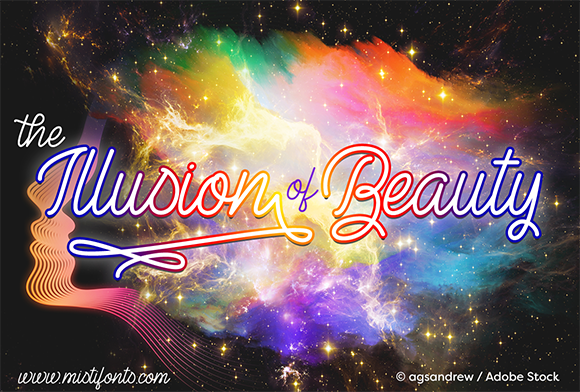
The Illusion of Beauty Font
About The Illusion of Beauty Font
The Illusion of Beauty is a stylish, monoline script font that is perfect for your craft and design projects!